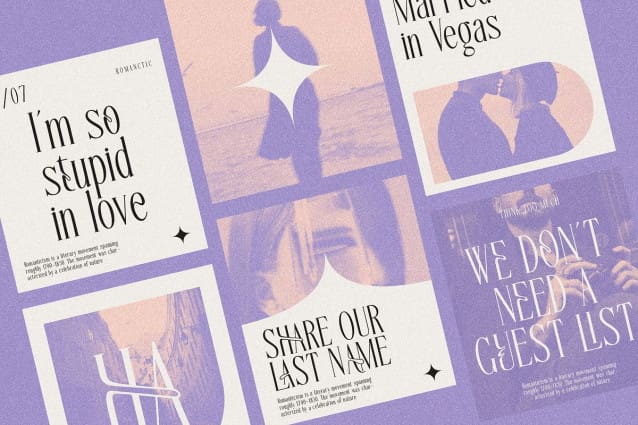
Cherola Font
Cherola Font, a unique elegant serif font that combines sophistication with an artistic flair. Designed for those who appreciate the finer details, Cherola is perfect for adding a touch of luxury to your designs.
Cherola Font is ideal for high-end branding, editorial design, wedding invitations, and more. Its versatile nature ensures it can adapt to various design needs while maintaining a consistent look of sophistication.
Embrace the beauty of curves, the elegance of serifs, and the surprise of ligatures with Cherola Typeface. Transform your design projects with a font that embodies grace and sophistication.